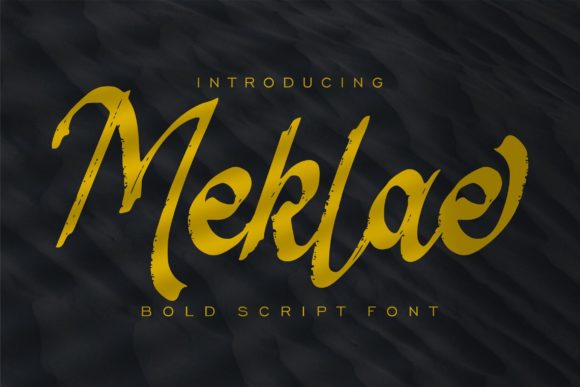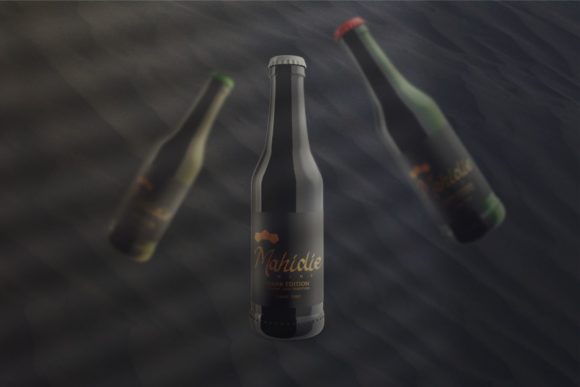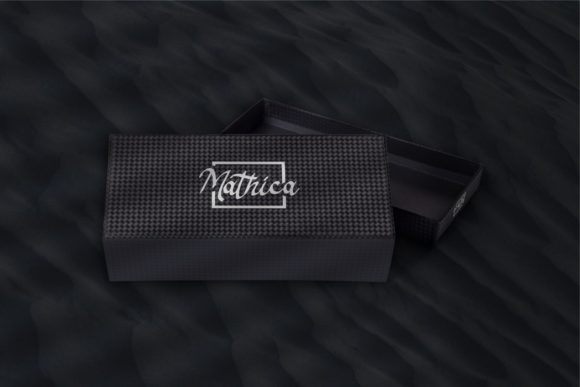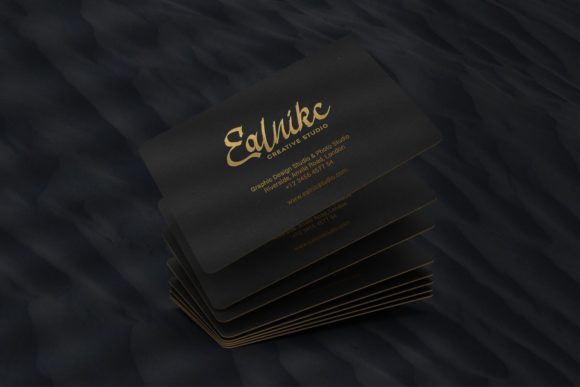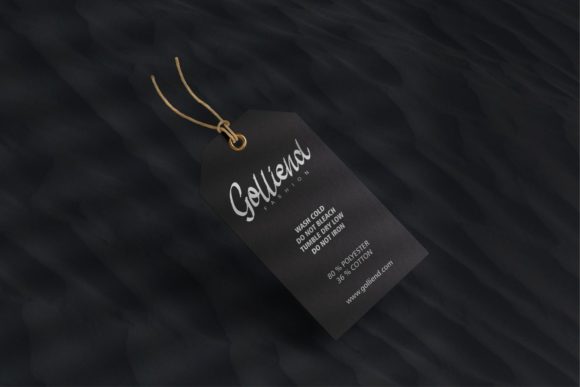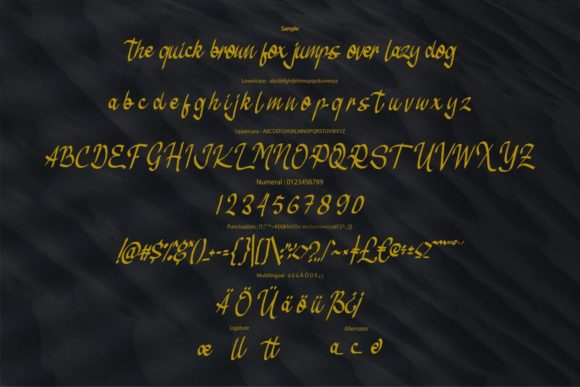
Meklae Font
About Meklae Font
Meklae is a bold script font with a calligraphy style. It looks beautiful on invitation like greeting cards, branding materials, business cards, quotes, posters, and more!